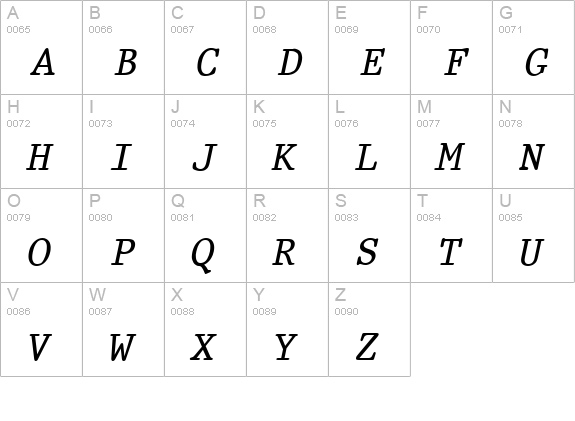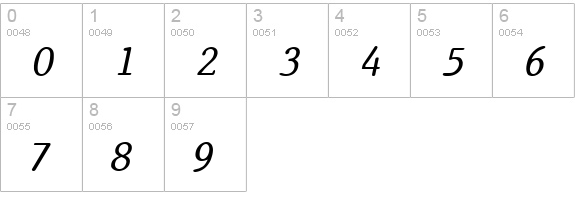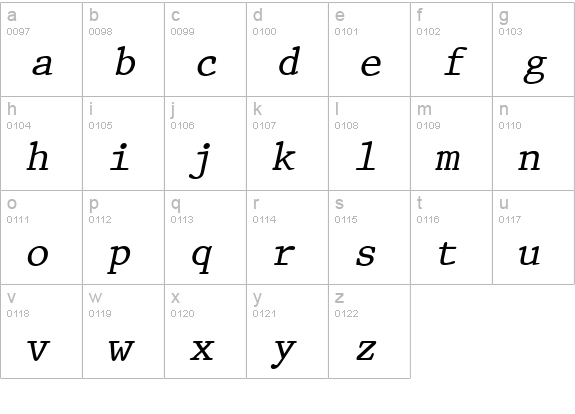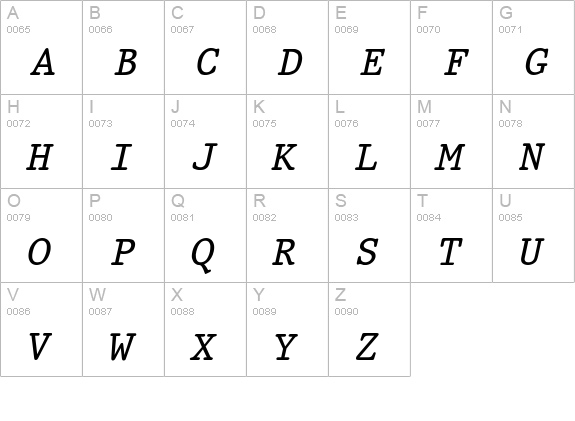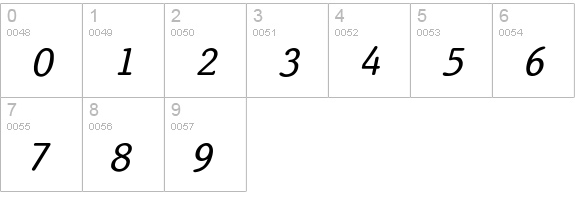
QTPristine Italic Font Details
QTPristine Italic is a distinctive, italic variant in the QTPristine typeface family \xE2\x80\x94 well suited to design and typography projects.
Introducing QTPristine Italic font, a stunning typeface that effortlessly combines elegance and modernity. This font offers a unique and sophisticated touch to any design project, making it perfect for branding, editorial work, logos, and much more. QTPristine Italic boasts a graceful slant and delicate curves that add a touch of class to any text. Its sleek and polished appearance creates a sense of professionalism and refinement, making it an ideal choice for luxury brands, high-end fashion magazines, and upscale websites. Not only does QTPristine Italic exude beauty and style, but it also offers the convenience of being freely available to download at FontsMarket.com. This means that you can easily access this exceptional font without any hassle or cost, allowing you to enhance your designs with its timeless allure. Whether you're creating eye-catching wedding invitations, crafting captivating headlines, or designing elegant business cards, QTPristine Italic font is sure to elevate your work to new heights. Its versatility and charm make it a valuable asset for designers, illustrators, and creatives seeking to make a lasting impression. With its flawless letterforms and impeccable attention to detail, QTPristine Italic font promises to bring sophistication and finesse to every project. Download this extraordinary font today at FontsMarket.com and experience the freedom to create effortlessly beautiful designs that leave a lasting impact.